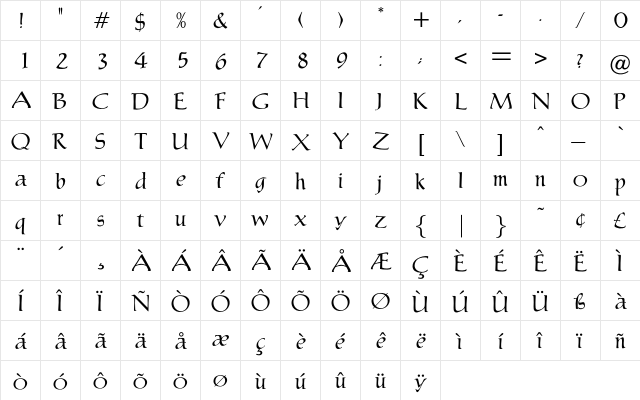
Caesar Regular
Design Context for Caesar Typeface
Caesar is a composed and adaptable typeface that performs quietly and consistently across a wide range of design contexts.